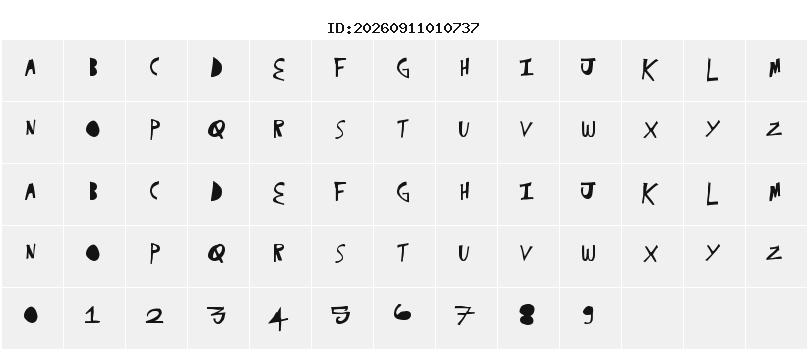
• Font Name: VictoryCut
• Full Font Name: VictoryCut
• Version: Version 1.00 November 19, 2012, initial release
• Designer: Max Infeld
• Manufacturer: Xerographer Fonts
• Description: This font Ojai,CA cutout filled in
About VictoryCut.ttf
VictoryCut.ttf is a modern, elegant sans-serif font designed for ultimate readability and visual harmony. Perfect for branding, headlines, web design, and print materials.